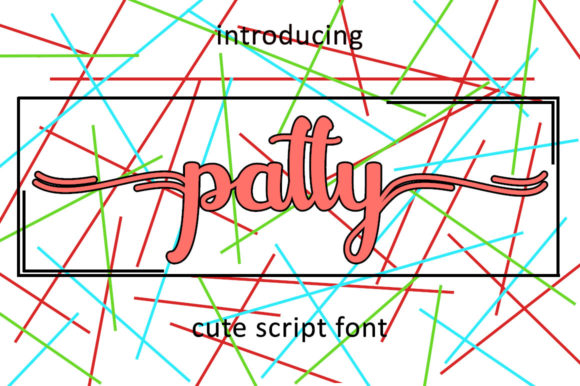
Indulge in the exquisitely crafted Patty Font, a captivating masterpiece that elevates the art of user experience design. Its graceful strokes, reminiscent of elegant calligraphy, effortlessly weave a tapestry of sophistication and modernity.
Immerse yourself in the world of Patty, a script font born from the desire to enchant and inspire. Its harmonious flow invites you to create designs that captivate the senses and leave a lasting impression. With Patty at your fingertips, you unlock a treasure trove of possibilities, empowering you to craft user interfaces that are as beautiful as they are intuitive.
Unleash your creativity with Patty's effortless versatility. Whether you seek to adorn your website, elevate branding materials, or inject a touch of charm into social media posts, Patty seamlessly adapts to your every need. Its PUA encoding ensures that you can effortlessly access a symphony of glyphs and swashes, empowering you to express yourself with unparalleled precision and artistry.
Embrace Patty Font today and embark on a journey of design excellence. Let its timeless elegance and unwavering charm elevate your creations to new heights, ensuring that every user encounter becomes an unforgettable experience.